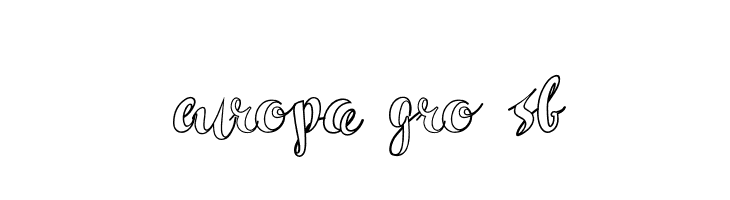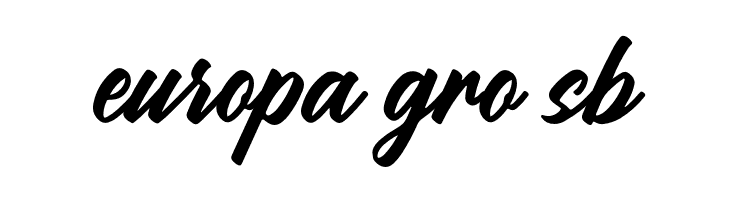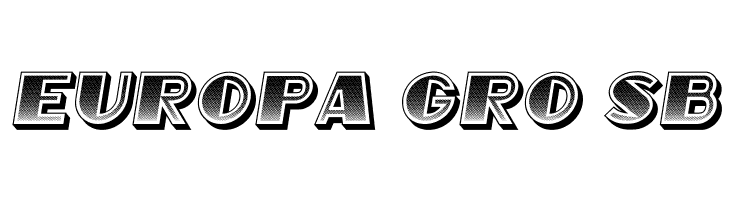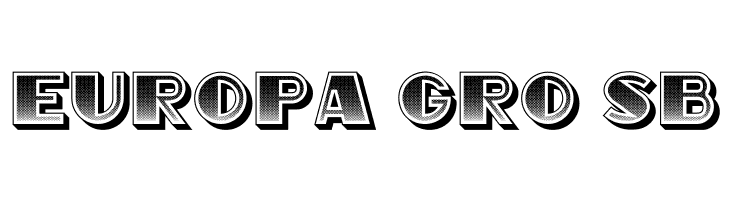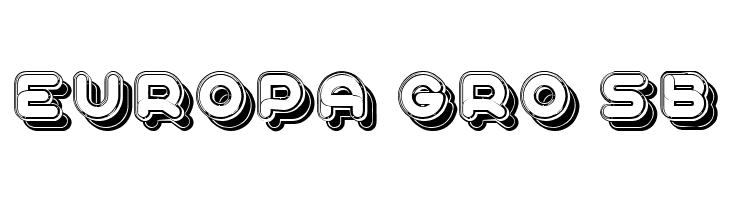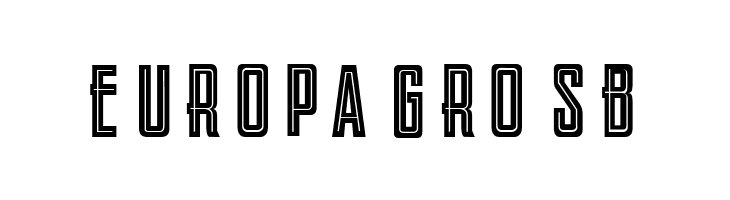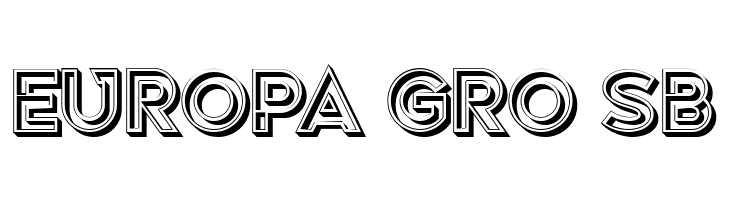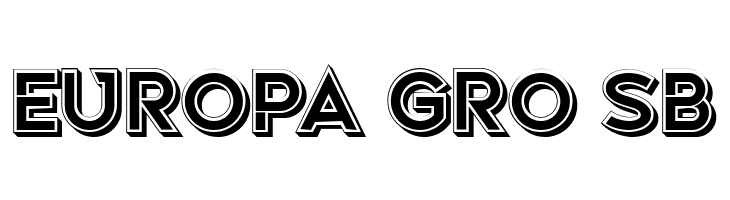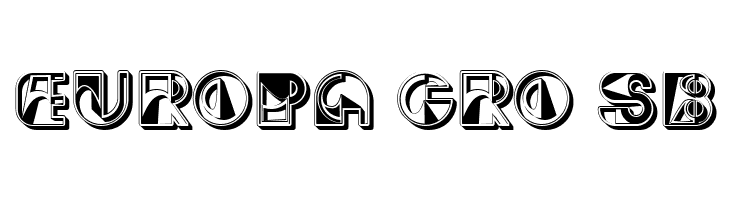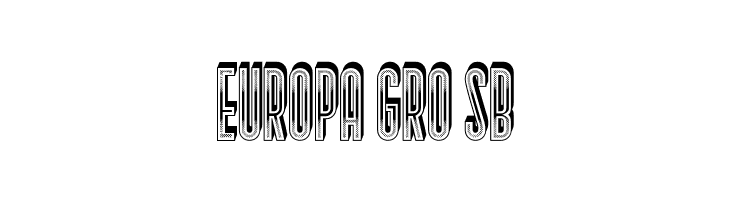
A modern, sans-serif font with a clean and slightly condensed style.
A bold, modern typeface with thick, uniform strokes and clean lines.
A dynamic, flowing script font with elegant curves and medium contrast.
A modern, light sans-serif font with a clean and condensed style.
A playful and decorative font with elegant, dotted characters.
A bold, decorative italic font with intricate serifs and flourishes.
A bold, decorative font with medieval-inspired details and high contrast strokes.
A bold, geometric font with a 3D shadow effect for modern display use.
A bold, geometric font with a three-dimensional outline effect.
A classic serif font with elegant strokes and refined serifs.
Elegant serif font with an oblique style, perfect for formal applications.
A bold, expressive handwritten font with dynamic brush-like strokes.
A bold, three-dimensional font with a shadow effect, offering a modern and dynamic look.
A bold, hollow, three-dimensional font with a modern, geometric style.
A bold, three-dimensional font with a shadowed outline, perfect for impactful headlines.
A bold, decorative font with a three-dimensional shadow effect.
A bold, modern font with a geometric, double-line design.
A bold, rounded font with a playful and friendly style.
A bold, modern sans-serif font with a geometric structure.
A lively, handwritten font with dynamic strokes and a modern, artistic flair.
A bold, decorative font with a unique striped pattern and narrow, structured characters.
A bold, italicized font with a 3D effect and dotted texture.
A bold, decorative font with a 3D shadow effect and dotted texture.
A playful and whimsical script font with decorative swirls and loops.
A futuristic and geometric font with rounded edges and consistent line thickness.
A futuristic and abstract font with bold, smooth curves and geometric shapes.
A bold, hollow, geometric font with a modern, architectural style.
A bold, geometric font with outlined characters and sharp edges.
A bold, handwritten-style font with rounded strokes and a playful, fluid appearance.
An elegant, flowing script font with intricate swirls and flourishes.
An elegant, flowing script font with whimsical loops and curves.
A bold, 3D font with a playful, bubble-like appearance and strong contrast.
A bold, geometric font with intricate patterns and strong outlines.
A bold, cursive font with interconnected, flowing letters and strong strokes.
A modern, geometric font with bold outlines and a dotted interior pattern.